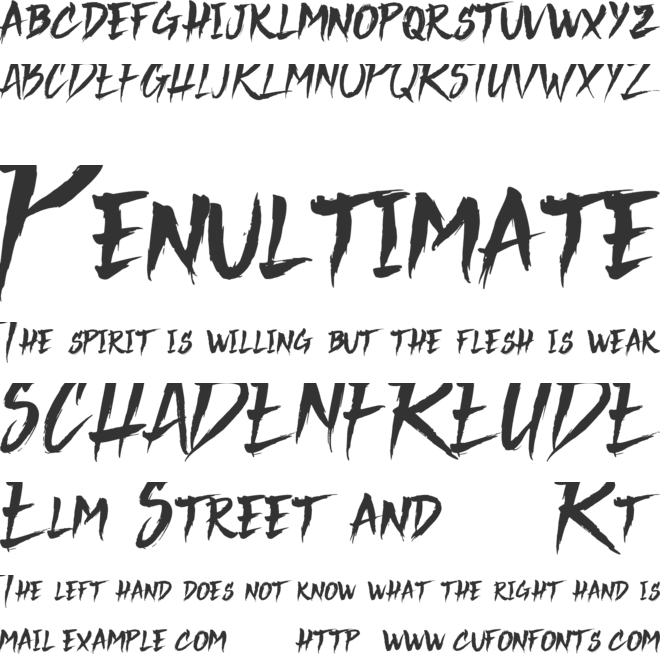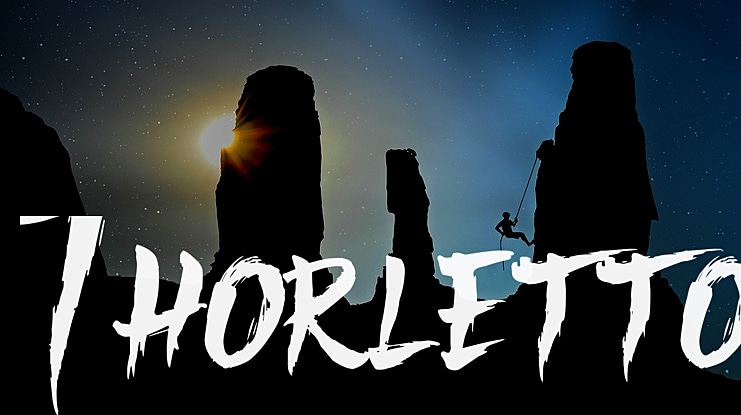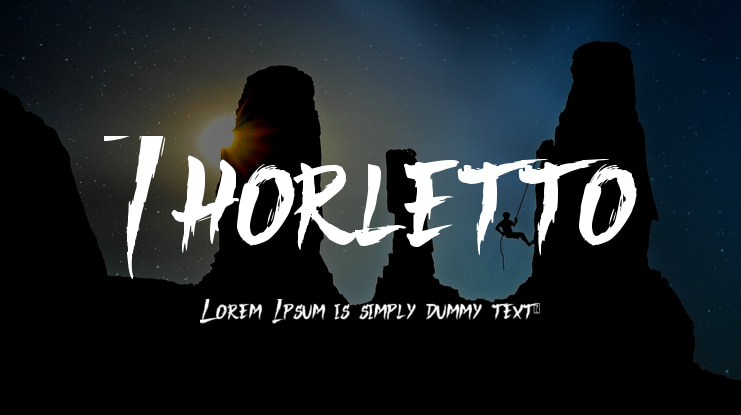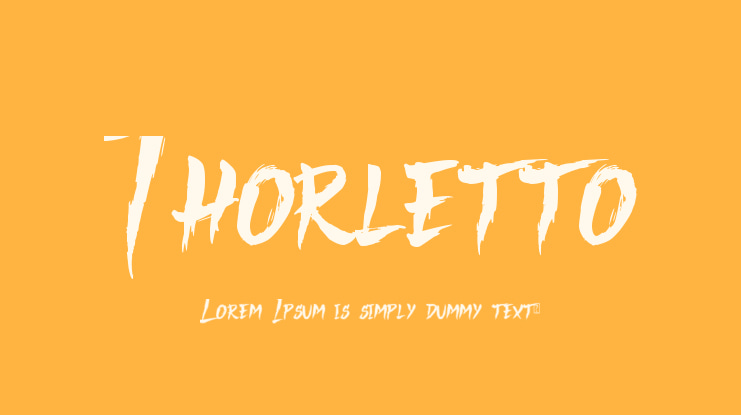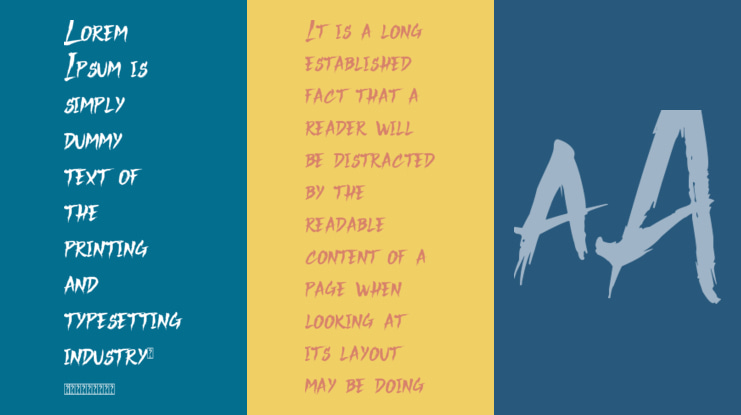
Presenting Thorletto! Created with the influence of the background story of the great franchise Fast and Furious, this font are meant to remind you to not give up, do your best, fight the good fight and fight for the best thing(s) in your life. This unique font characterized by its stroke of brush on every glyph, it made intentionally with a real brush resulting in a unique, bold, and rough looking font.